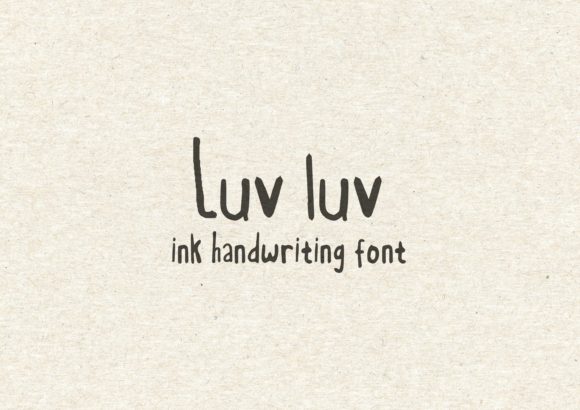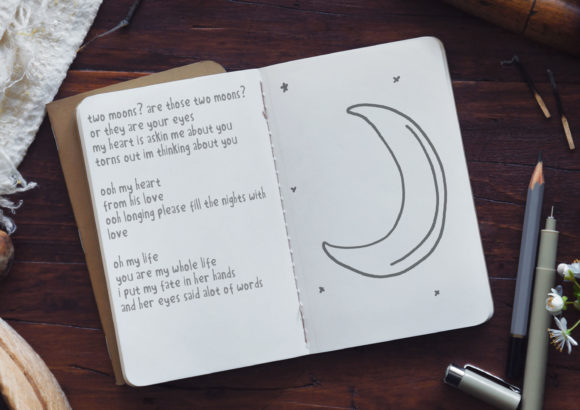
Luv Luv Font
About Luv Luv Font
Luv Luv is an incredibly authentic handwritten font, perfect for any design to which you wish to add a personal touch. Fall in love with its unique style and make it your go-to font no matter the project!